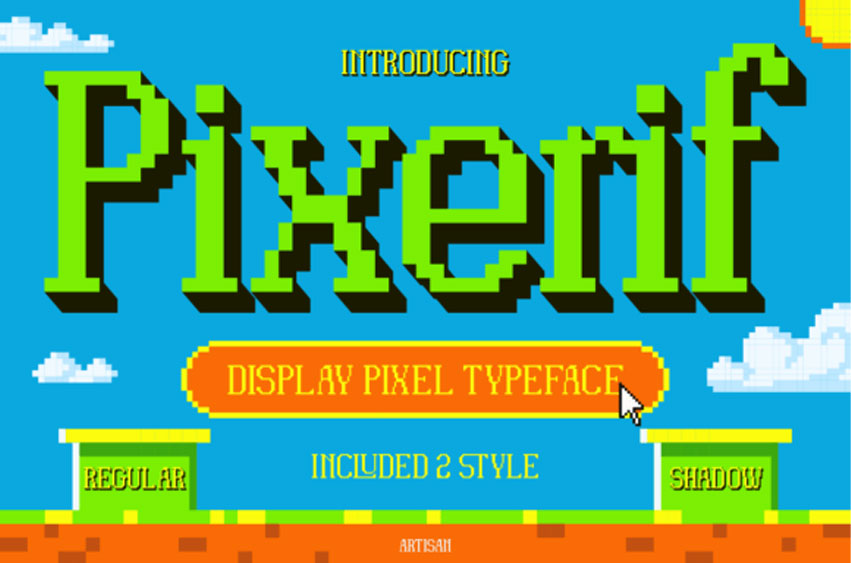
Pixerif Regular Font
Pixerif Regular Font is a playful display typeface inspired by iconic 8-bit game fonts—a square-pixel, clean-line, and fun look that pops.
Pixerif Font is available in 2 styles: Regular (for a clear message) and Shadow (to make text stand out, perfect for logos). It’s really easy to use, and you can combine both styles for extra impact.